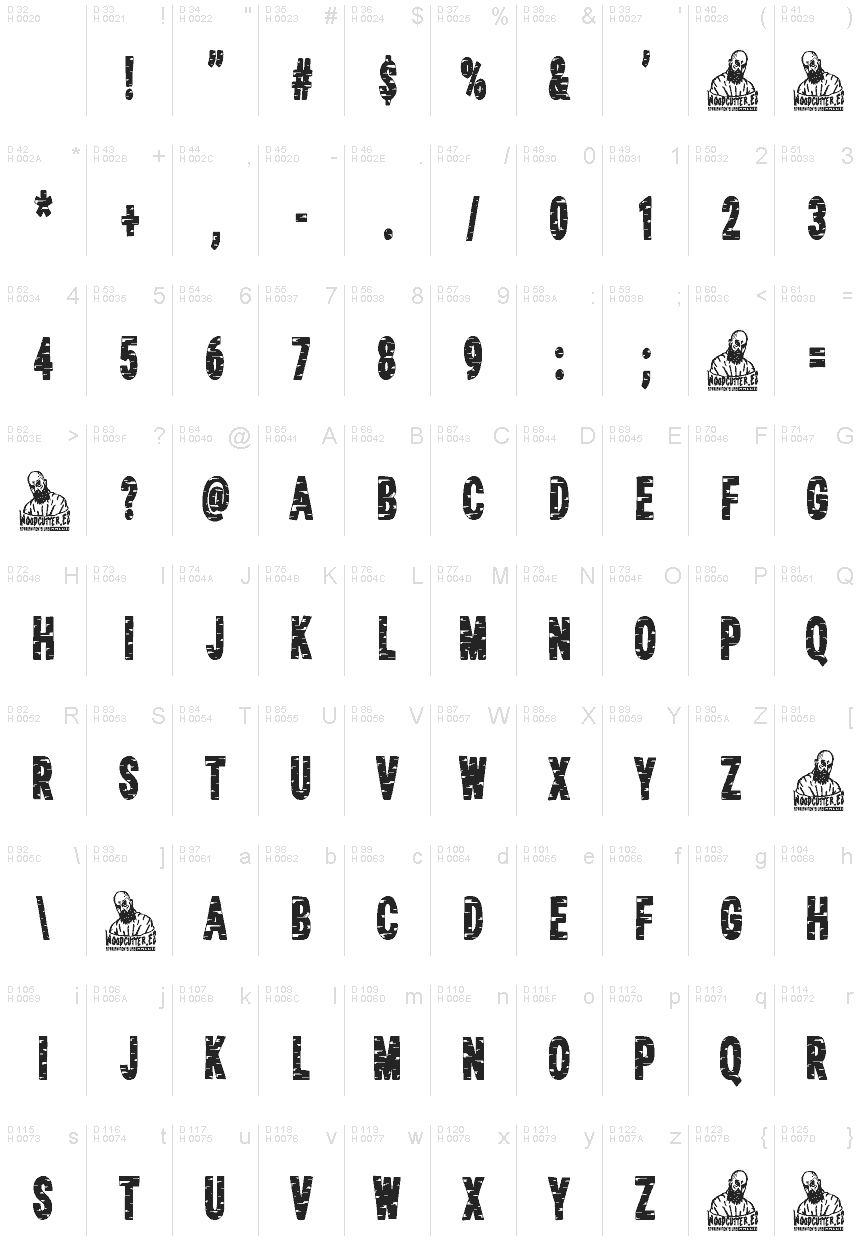
The Bride of Spain
The Bride of Spain font by Woodcutter is a textured bold typeface with eroded and distressed details, a high contrast in its width lines, and an impactful presence. It naturally delivers a vintage vibe within its blocky style and condensed characters.
A display style font by all standards, this free font can be used for titles, movie posters, album covers, magazine designs, advertising materials, greeting cards or invitation cards. Other usages include quotes typography art and apparel design print graphics.